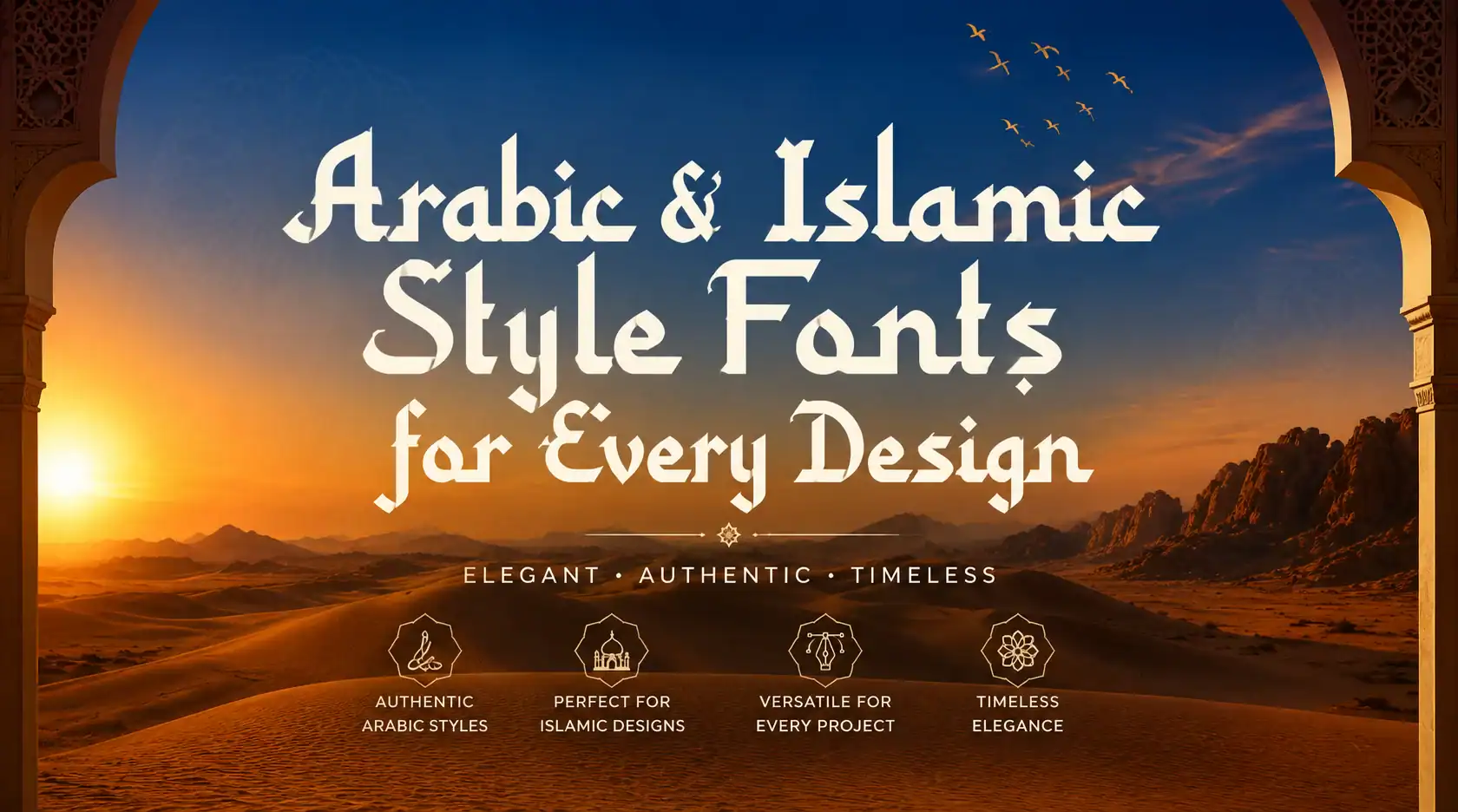
Arabic & Islamic Style Fonts for Every Design
Arabic calligraphy has shaped visual culture for over a thousand years, and that legacy is now available as ready-to-use display type. This collection brings together 48 Arabic and Islamic-style fonts — from flowing Naskh-inspired scripts to bold blackletter-Arabic hybrids — each built for branding, packaging, wedding invitations, and cultural event design rather than just decorative flourish.
Every font below comes with a direct link, a plain-language breakdown of where it actually works best, and an honest editorial take instead of recycled marketing copy. Whether you’re designing a restaurant menu, a mosque event poster, or a fashion label with Middle Eastern roots, there’s a typeface here built for the job.
Blackletter Arabic
1. Arabian Mandala
Arabian Mandala fuses blackletter structure with authentic Arabic character into one distinctive typeface. Well-balanced letter proportions, alternate characters, and ligatures leave real room for creative exploration across a wide range of design styles.
My take: Blackletter usually reads as European Gothic — grafting it onto Arabic structure is the unusual move here, and at display size it actually holds together instead of looking like two alphabets fighting each other.
Playful Arabic
2. Tazmeera
Tazmeera is a playful Arabic typeface with a genuinely dynamic personality. Well-structured letter proportions, alternates, and ligatures give it the same range for creative exploration as its more serious counterparts.
My take: “Playful” is a word design briefs throw around a lot; here it actually shows up in the letterforms rather than just the marketing copy around them.
Versatile Arabic
3. Thalabul Ilmi
Thalabul Ilmi is a versatile Arabic typeface built to balance style and readability rather than pick one over the other. Well-structured proportions and support for alternates and ligatures keep it adaptable across design styles.
My take: Nothing here is trying to be the loudest font in the pack, which is exactly why it’ll outlast most of the ones that are.
Clean Arabic
4. Al Bahjah
Al Bahjah goes for a clean, professional finish rather than heavy ornamentation. Balanced letter proportions and support for alternates and ligatures still leave room to adjust its character to the project.
My take: The safest choice on this list, in the best sense — it won’t fight with a logo or a product label the way a heavier display face would.
Hand-Drawn Arabic
5. Raqasy
Raqasy is a hand-drawn Arabic font built for genuine handcrafted warmth rather than a polished digital finish. Its letter proportions and alternate/ligature support still hold up across a range of design styles.
It ships in OTF/TTF/WOFF plus a web font, with multilingual support and compatibility across Illustrator, Photoshop, InDesign, and Word — well suited to an invitation or a personal brand that wants to feel handmade.
My take: Hand-drawn fonts usually sacrifice legibility for character — this one keeps enough structure that it still reads easily at paragraph size, not just as a headline.
Blackletter Arabic
6. Khaleed
Khaleed fuses blackletter drama with authentic Arabic script for a font built around strength rather than subtlety. Its structured proportions and ligature support keep that intensity usable across formats.
Available in OTF/TTF/WOFF plus a web font, with multilingual support and compatibility across Illustrator, Photoshop, InDesign, and Word, it’s built for a bold headline or cultural branding that wants to be noticed.
My take: Where Arabian Mandala keeps the blackletter fusion restrained, Khaleed leans into the drama — pick this one when the brief actually says “bold,” not just “nice.”
Adaptable Arabic
7. Al Mughir
Al Mughir is built to adapt across a wide range of design styles rather than commit to one visual identity. Structured letter proportions and alternate/ligature support back that flexibility up.
My take: A strong closer for the set — decorative enough to stand alone as a headline, but not so ornate that it can’t share a page with body text.